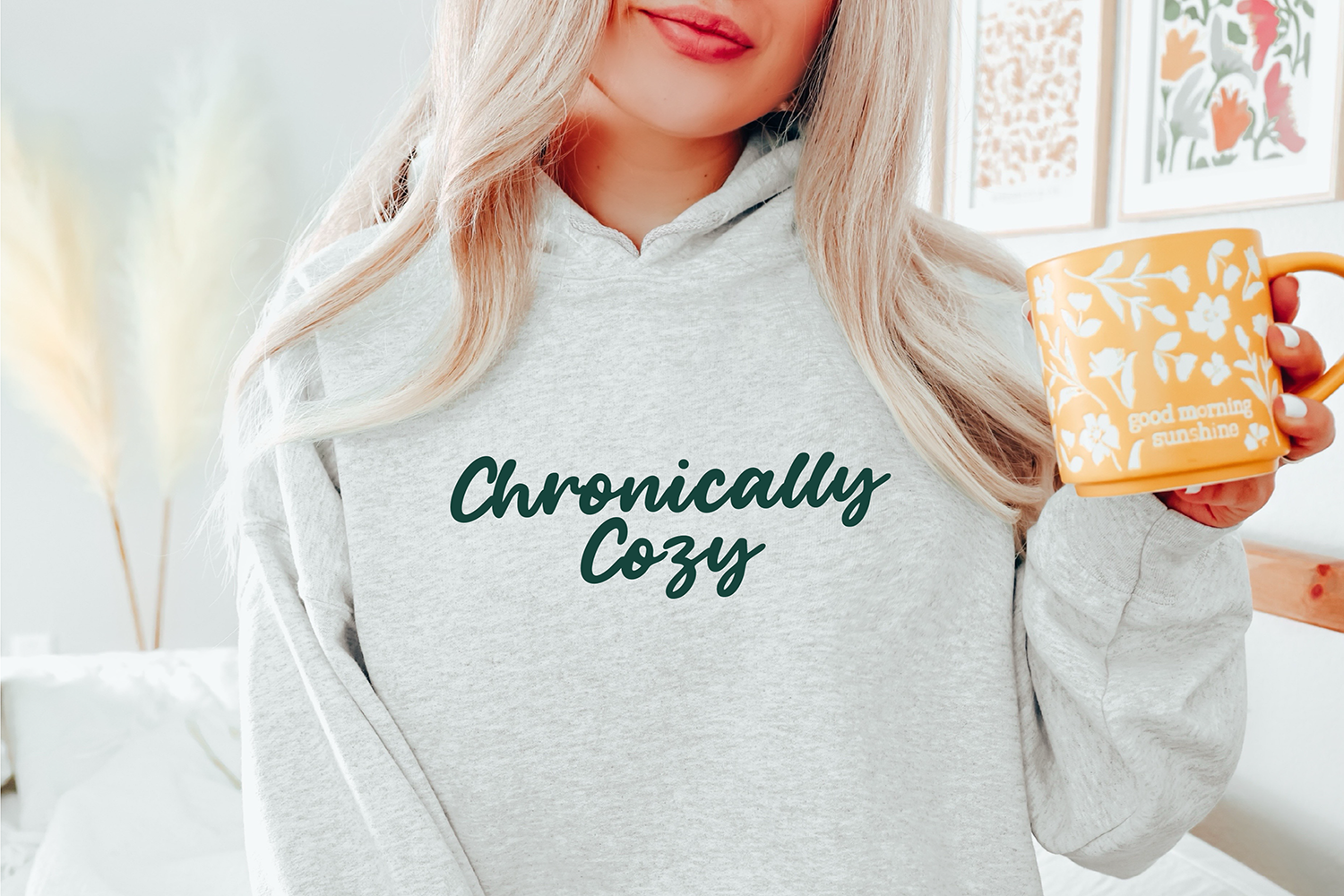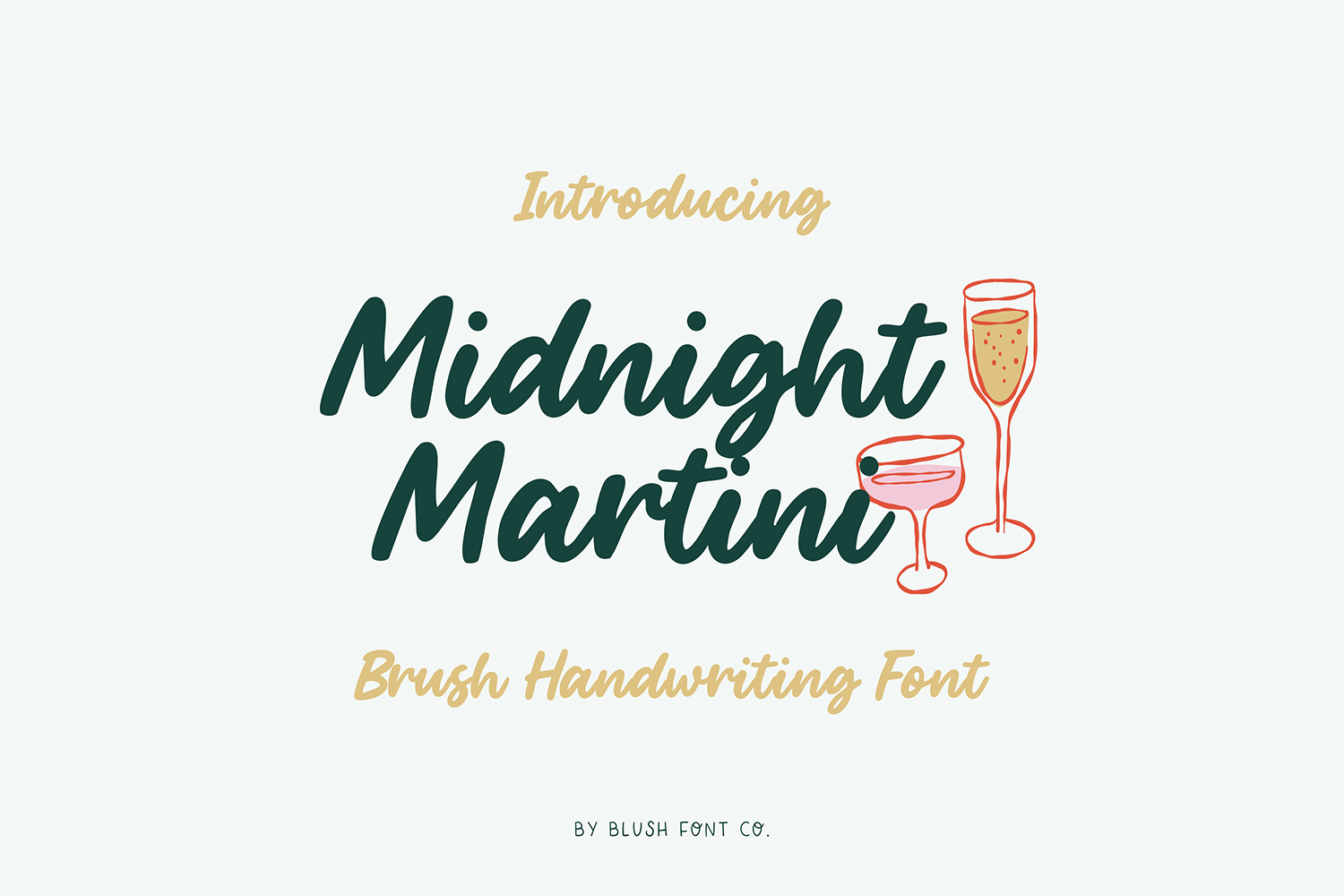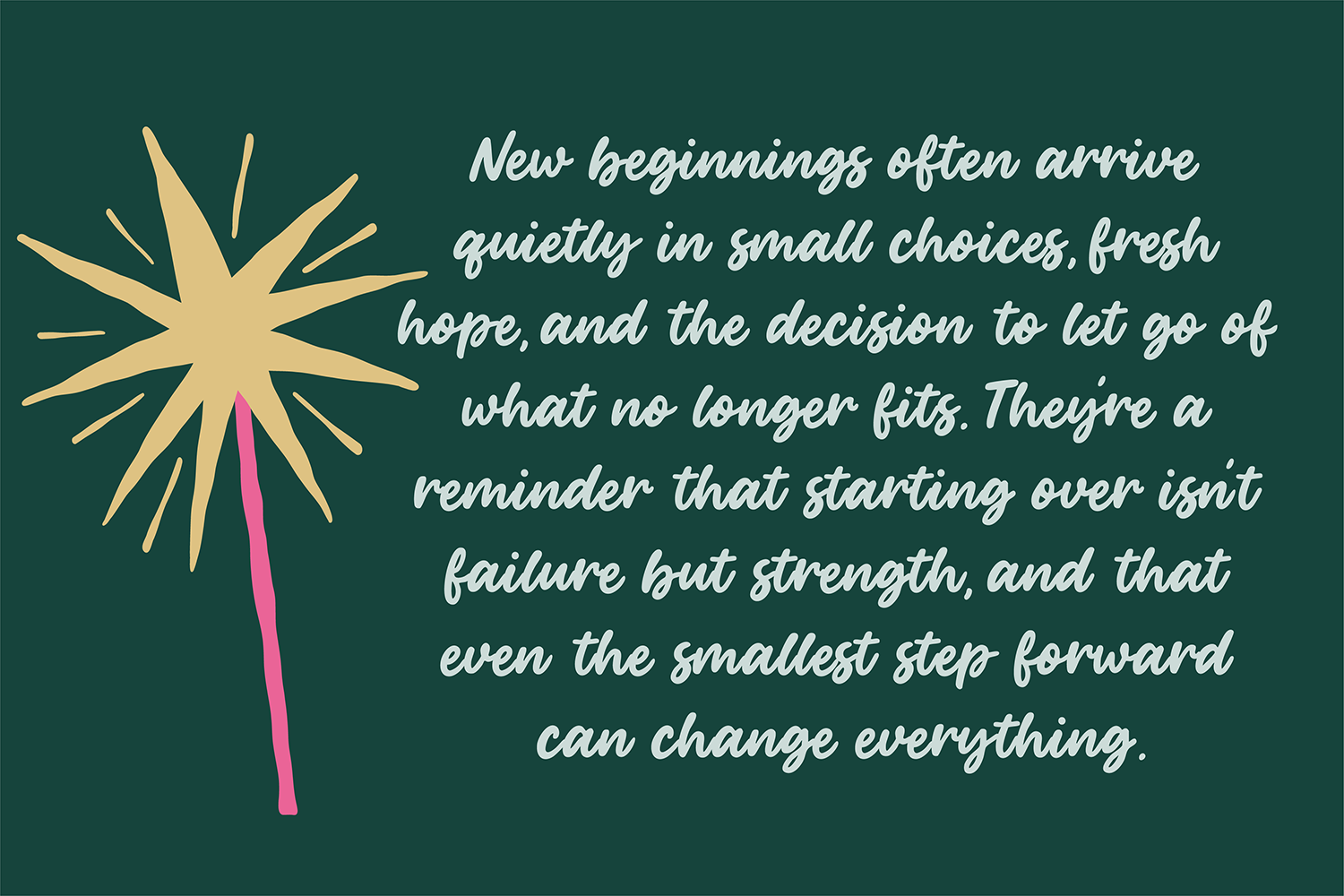
"Midnight Martini" brush script font.
This font is a handwritten brush cursive font that is perfect for social media or crafty projects.
"Midnight Martini" brush script font.
This font is a handwritten brush cursive font that is perfect for social media or crafty projects.